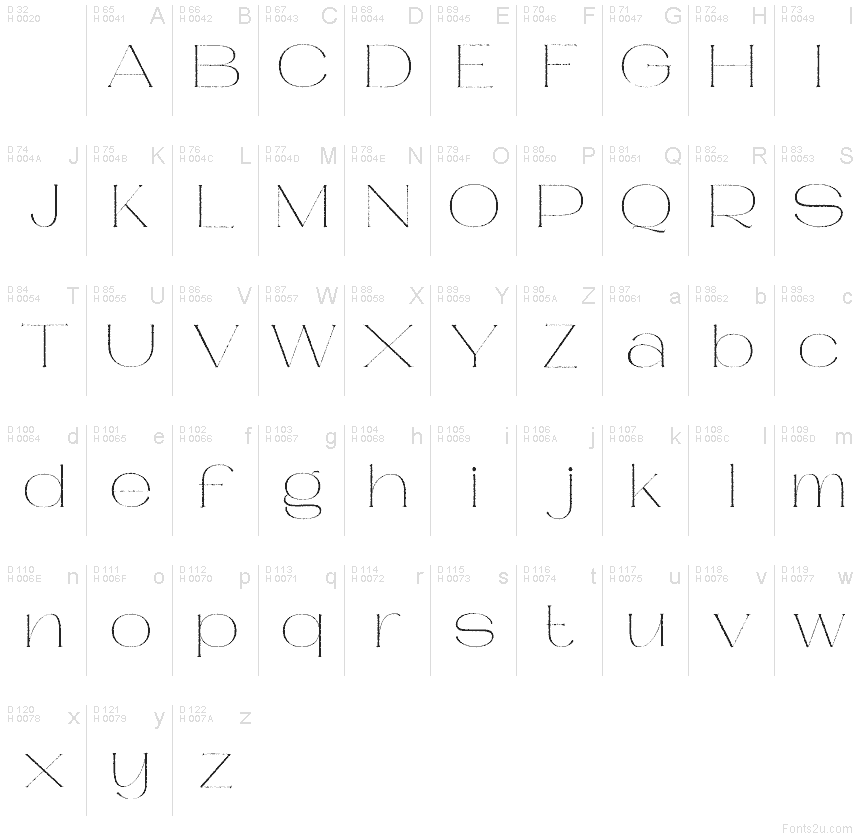
Rengard Rough Regular Demo
Rengard Rough font by Craft Supply Co. is an airy expanded free serif font in a sleek, elegant style. It features light weight and vintage eroded serifs to achieve a minimalist, modernist appearance that combines both artistic experience and craftmanship.
Refined by its creator’s visions, this typeface is sophisticated enough for book and magazine covers, flyers, posters, cards, branding designs including logotypes.